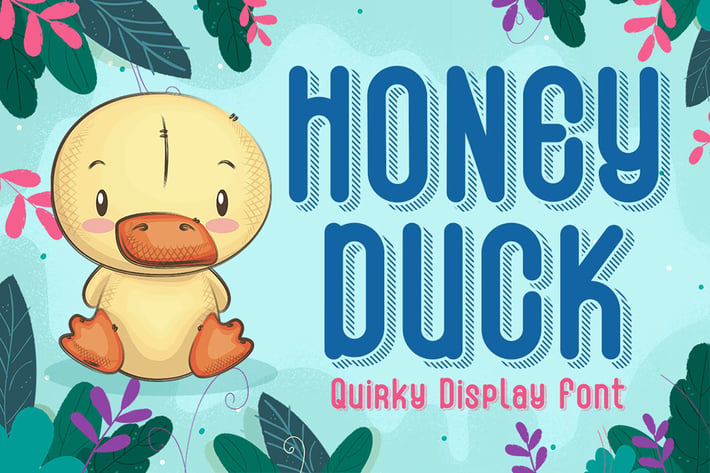
Honey Duck - Playful and Unique Font
Honey Duck embodies fun, quirkiness, and authenticity. This enchanting display font will turn any creative idea into a true standout.
Honey Duck would be perfect for logos & branding, photography, watermark, social media posts, advertisements, invitation, product designs, label, stationery, wedding designs, product packaging, special events or anything that need handwriting taste.